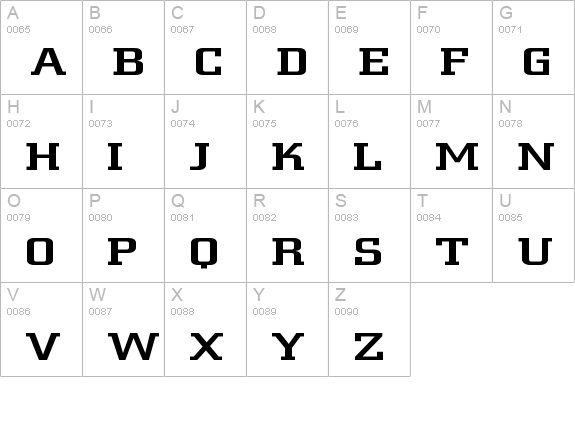
Geo 957 Extended Normal is the standard, neutral, extended-width variant in the Geo typeface family \xE2\x80\x94 well suited to general body text, paragraphs, and standard typographic work.
Introducing Geo 957 Extended Normal font, a modern and versatile typeface designed to make your projects stand out. This sleek and sophisticated font features clean lines and a balanced weight distribution, making it perfect for a wide range of design applications. Whether you're working on branding, advertising, editorial design, or web projects, Geo 957 Extended Normal font is sure to impress with its professional aesthetic. What's even better is that Geo 957 Extended Normal font is available for free download at FontsMarket.com. This means you can easily access this high-quality font and enhance your creative work without any cost. Don't miss out on this fantastic opportunity to elevate your designs with Geo 957 Extended Normal font – download it today and see the difference it can make!